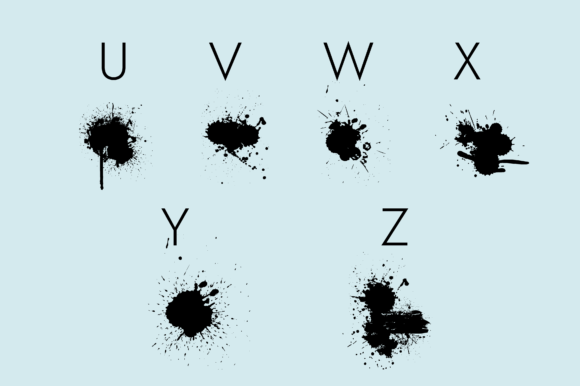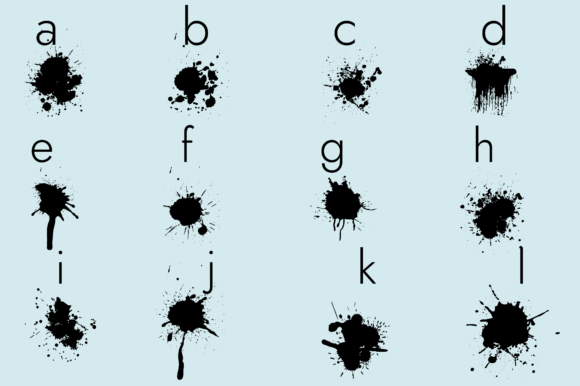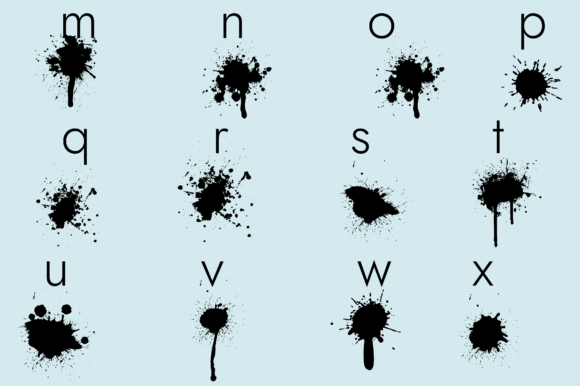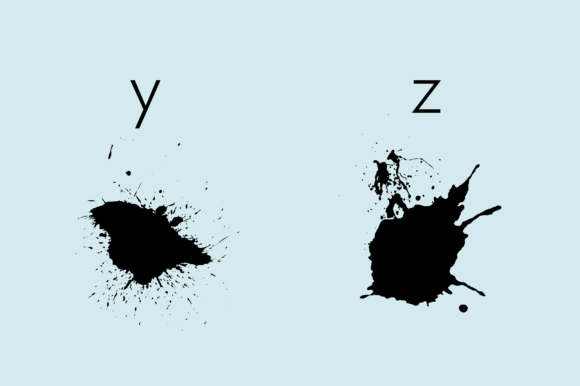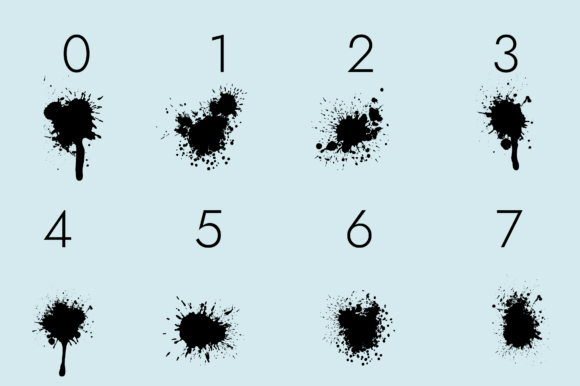
Ink Splash Font – Free Download
Introduction to Ink Splash Font
Ink Splash is a cool, useful dingbats font.
Key Features of Ink Splash Font
Why Choose Ink Splash Font?
Ink Splash Font offers exceptional quality and versatility, making it a valuable addition to your design toolkit. Whether you’re creating for personal projects or commercial use, Ink Splash Font delivers professional results.